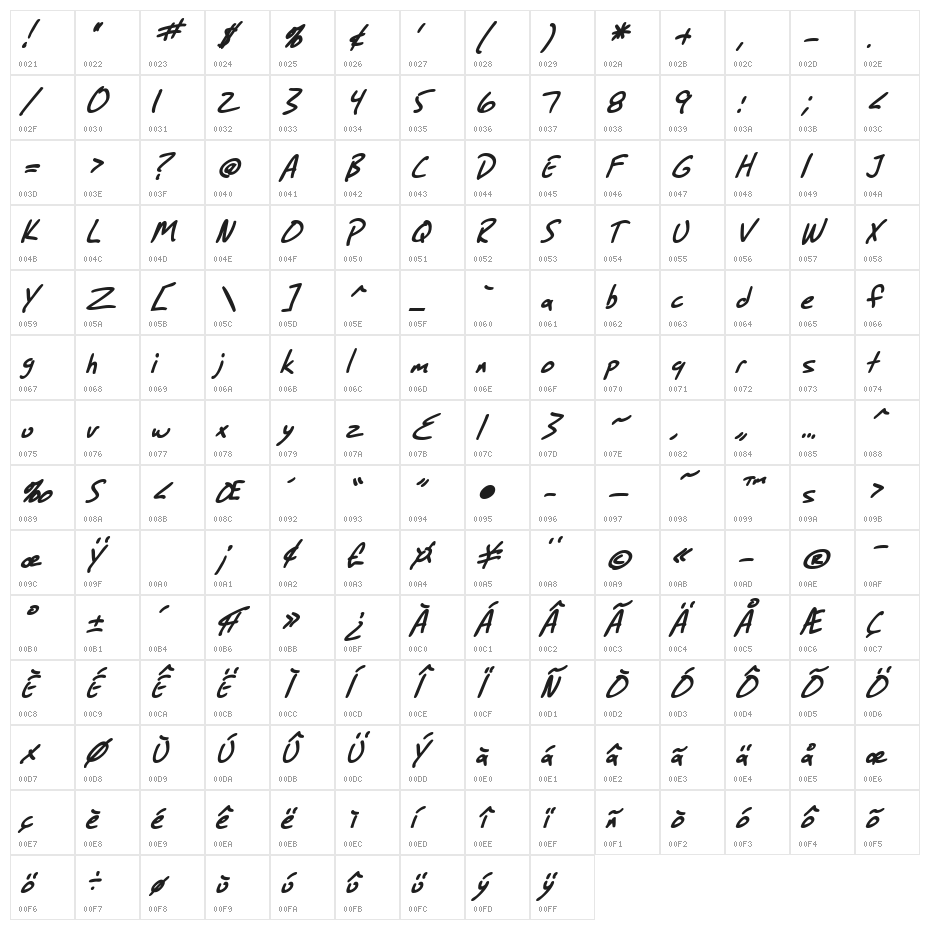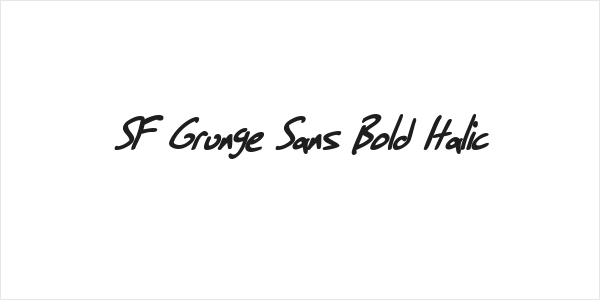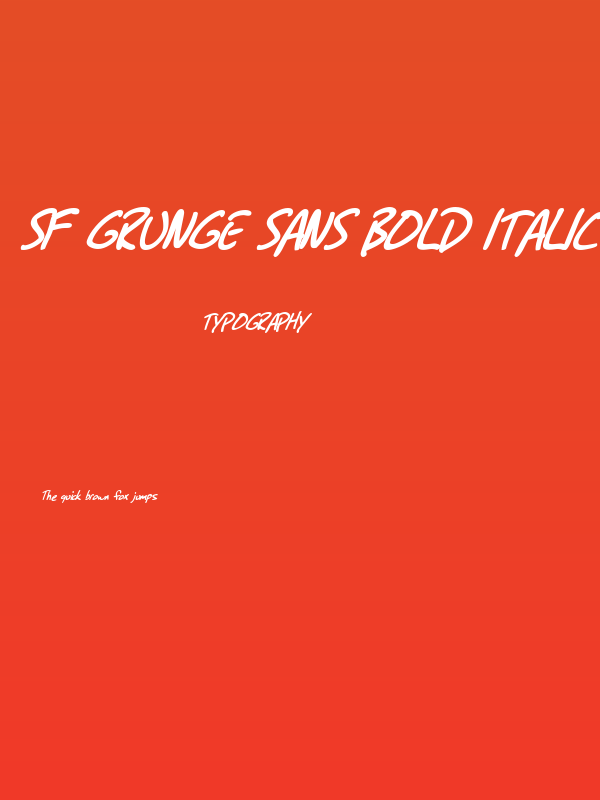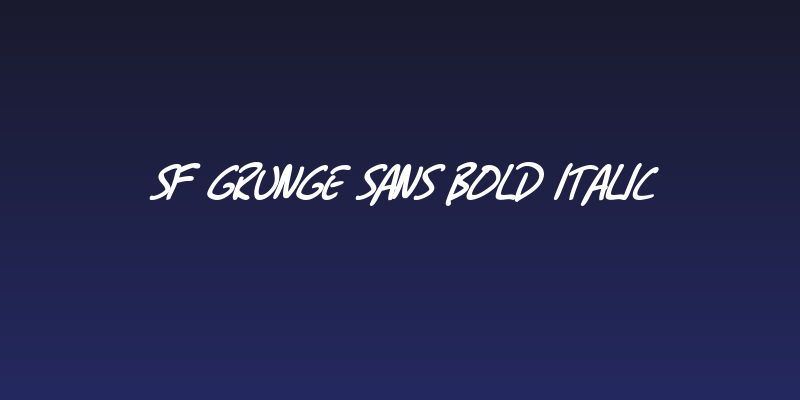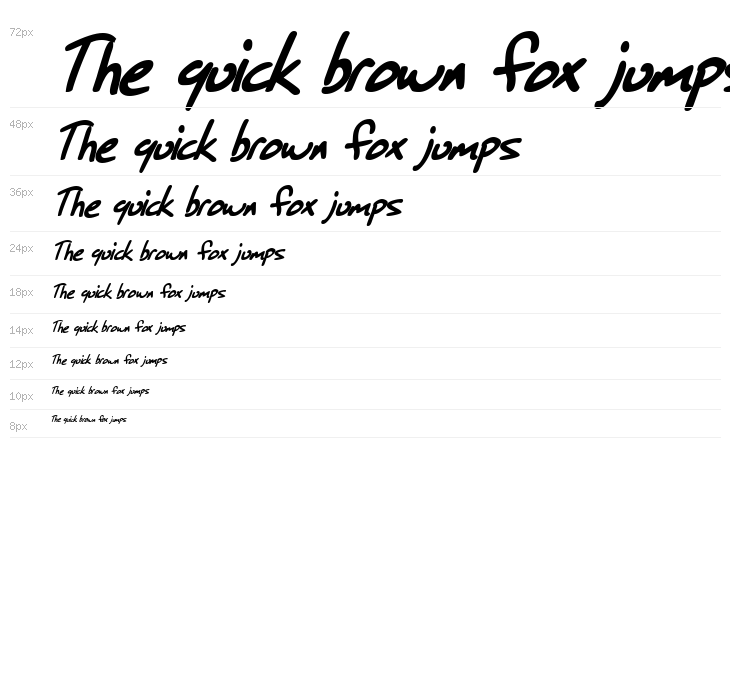
SF Grunge Sans Bold Italic Font
SF Grunge Sans Bold Italic Description
This font exhibits a bold and italicized style with a grunge aesthetic, characterized by its rough, hand-drawn appearance. The letters are slightly slanted, adding a dynamic and energetic feel. The strokes are thick and uneven, giving it a raw and edgy look. This font is perfect for projects that require a touch of rebellion or a casual, handwritten vibe. The uppercase and lowercase letters maintain a consistent style, while the numbers and special characters complement the overall design. The font's unique personality makes it stand out in any creative project.
| Overall Style | Grunge, Handwritten |
| Proposed Projects | Ideal for music album covers, posters, streetwear branding, or any project needing a rebellious, artistic touch. |